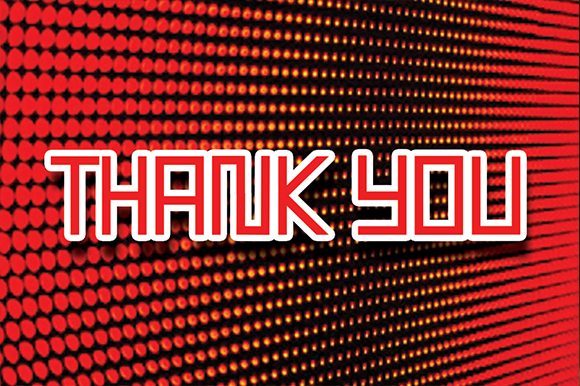
Introduction to Pixel Smart Font
Remember that moment when you’re working on a creative project and you’re stuck searching for the perfect font to give it that extra oomph? You scroll through page after page of generic, overused fonts, and just when you’re about to lose hope, you stumble upon something that catches your eye. For designers and crafty DIY enthusiasts alike, finding the right font can make all the difference in taking a project from meh to mesmerizing.
Enter Pixel Smart Font, a high-quality display font that’s as quirky as it is clean. This design resource is a game-changer for anyone looking to add some personality to their branding, social media, or crafty creations. With a transparent background and a range of fun, expressive characters, Pixel Smart Font is the perfect fit for any creative project.
Key Features of Pixel Smart Font
- High-resolution design (300 DPI) suitable for print and digital applications
- Transparent background option for easy integration with any design resource
- Pixel-perfect design with precise control over font size and resolution
- High-quality, scalable design suitable for a wide range of applications, from posters to mobile apps
Honest Review: Pixel Smart Font
I recently stumbled upon Pixel Smart Font and was excited to dive in and explore its features. As a designer, I’m always on the lookout for high-quality design resources that can elevate my creative project. In this review, I’ll share my honest thoughts on what works well and what could be improved.
- Pixel Smart Font offers a unique pixelated aesthetic that’s perfect for retro-themed designs or games.
- The font is highly customizable, with a wide range of size and color options.
- The transparent background feature allows for seamless integration with other design elements.
- The font library is relatively small, which may limit its appeal for designers working on large-scale projects.
- The font may not be suitable for projects that require a more professional or corporate tone.
Tips for Getting the Most Out of Pixel Smart Font
For the best results, use Pixel Smart Font in conjunction with other design elements that complement its unique style. Experiment with different font sizes, colors, and arrangements to create a visually appealing design.
The Pixel Smart Font is perfect for a variety of creative projects, including logos, graphics, presentations, and documents. Its high-quality design and transparent background make it an ideal choice for designers who want to create professional-looking designs with a modern twist.